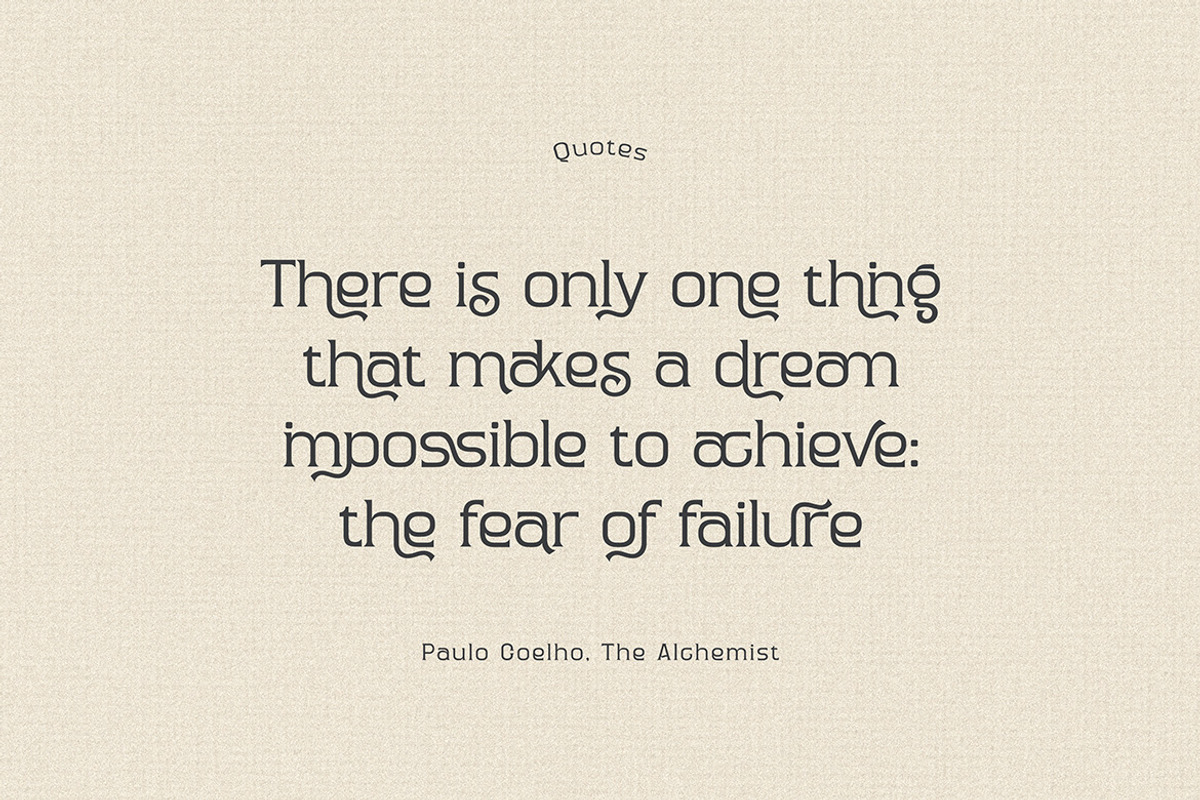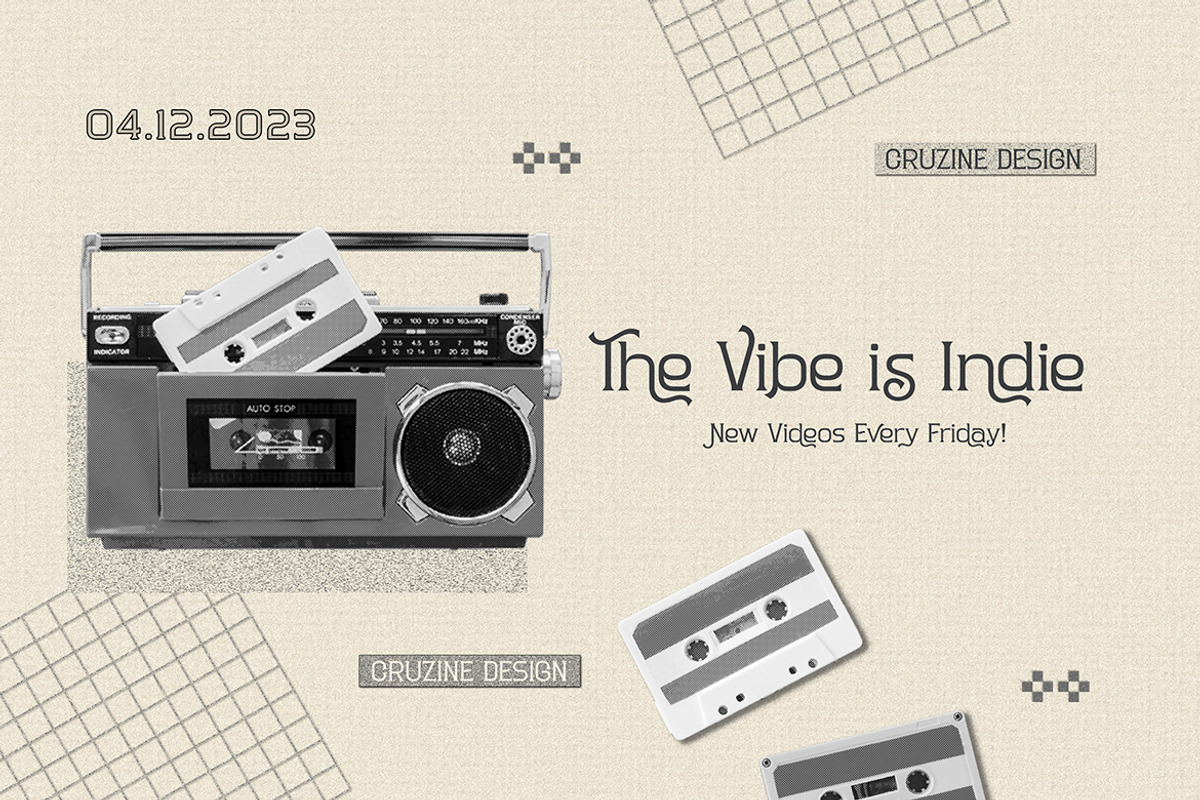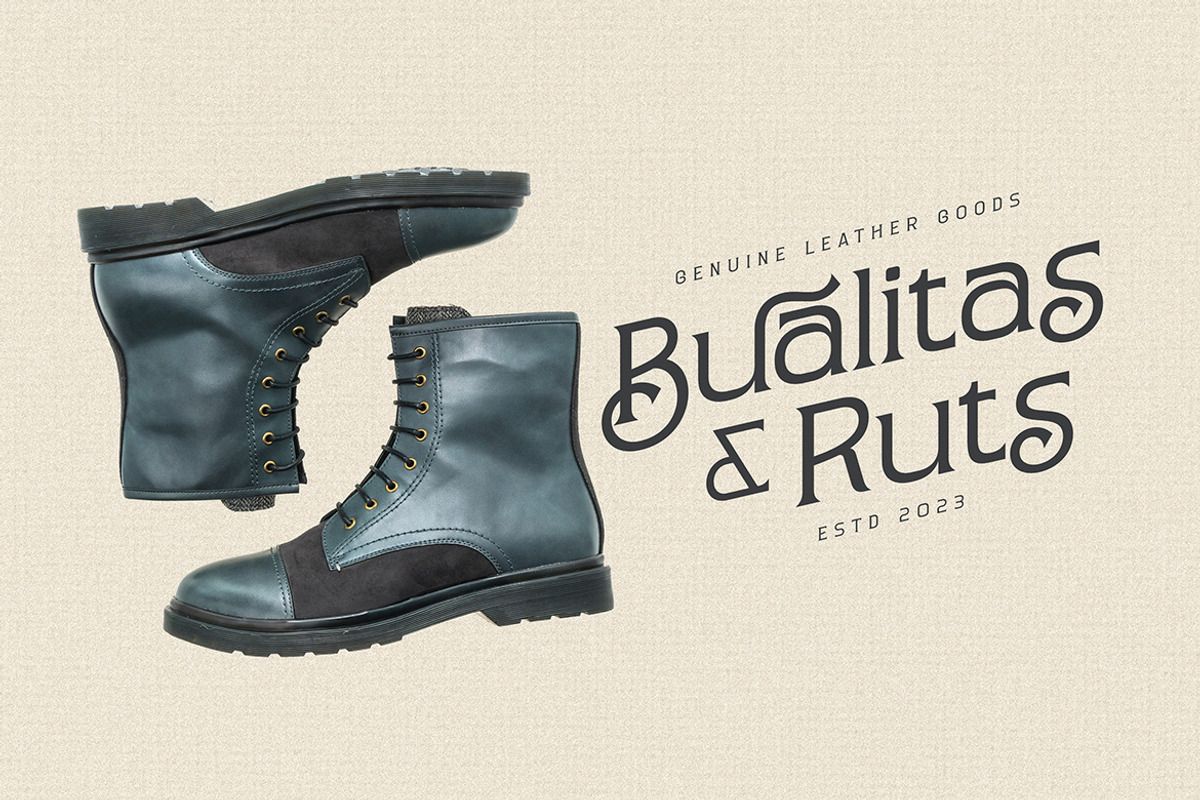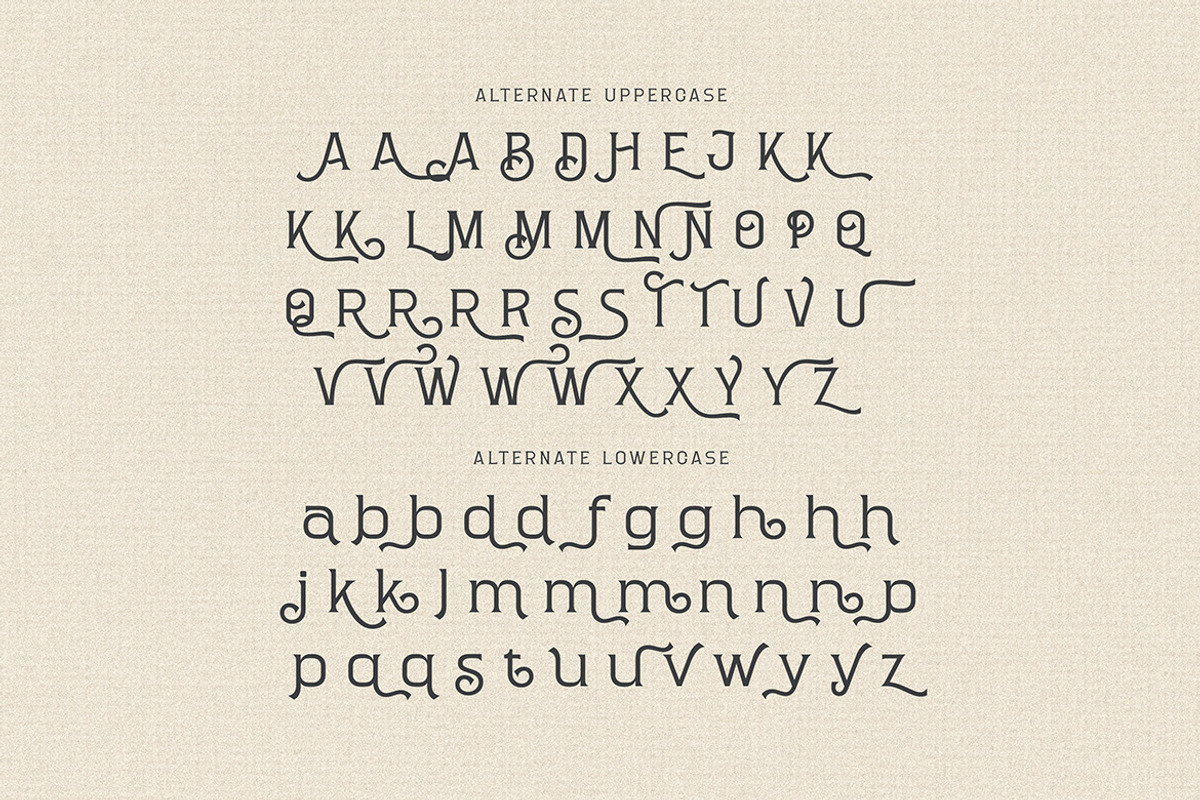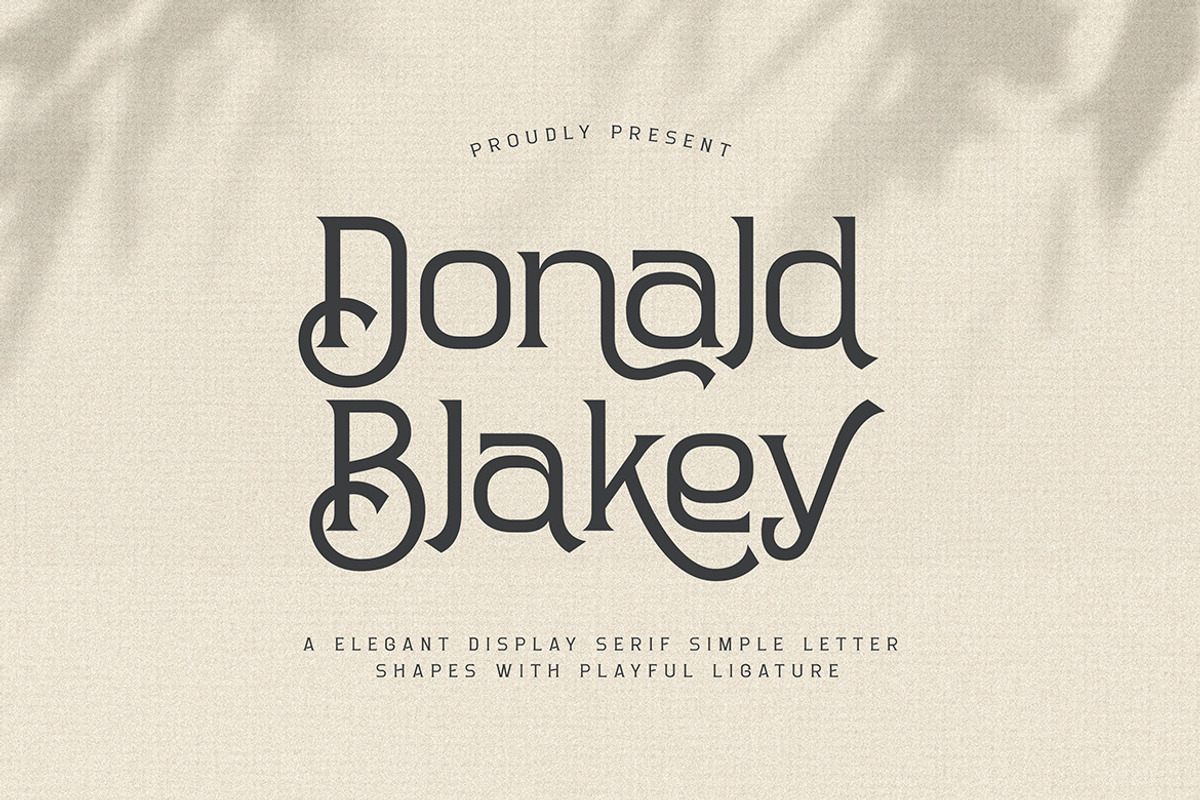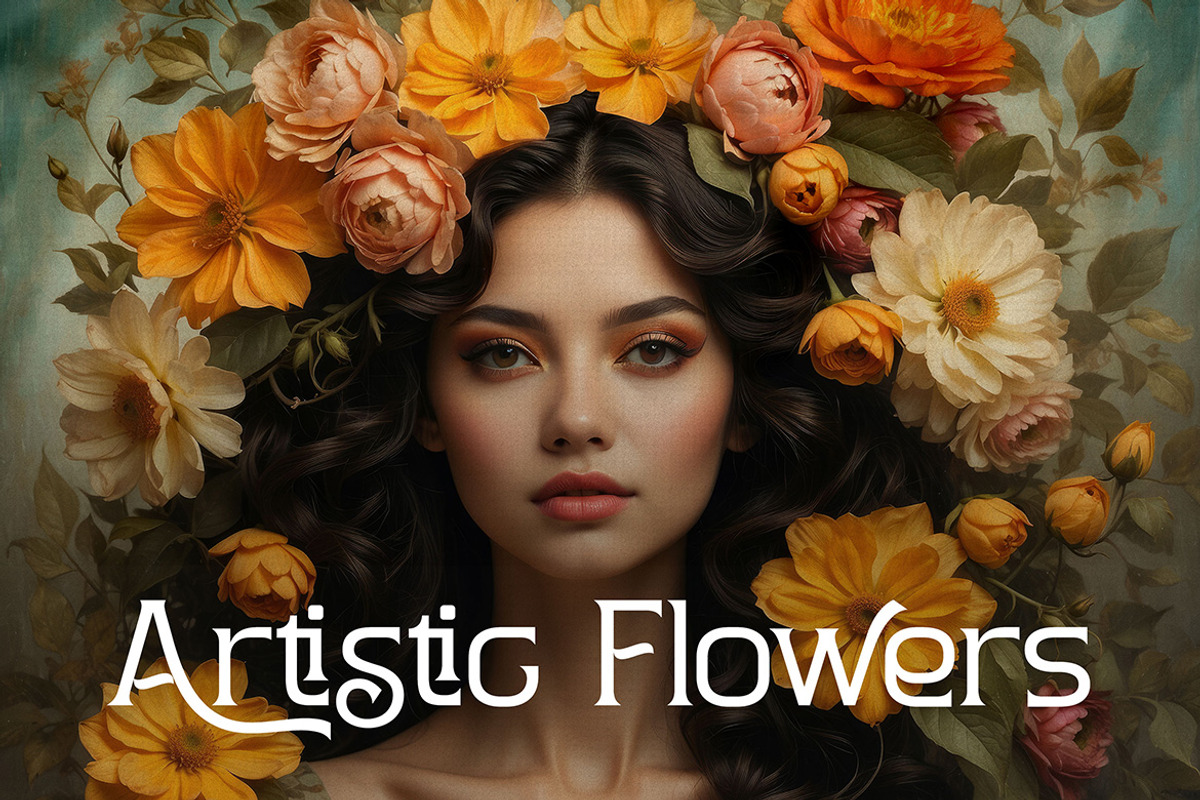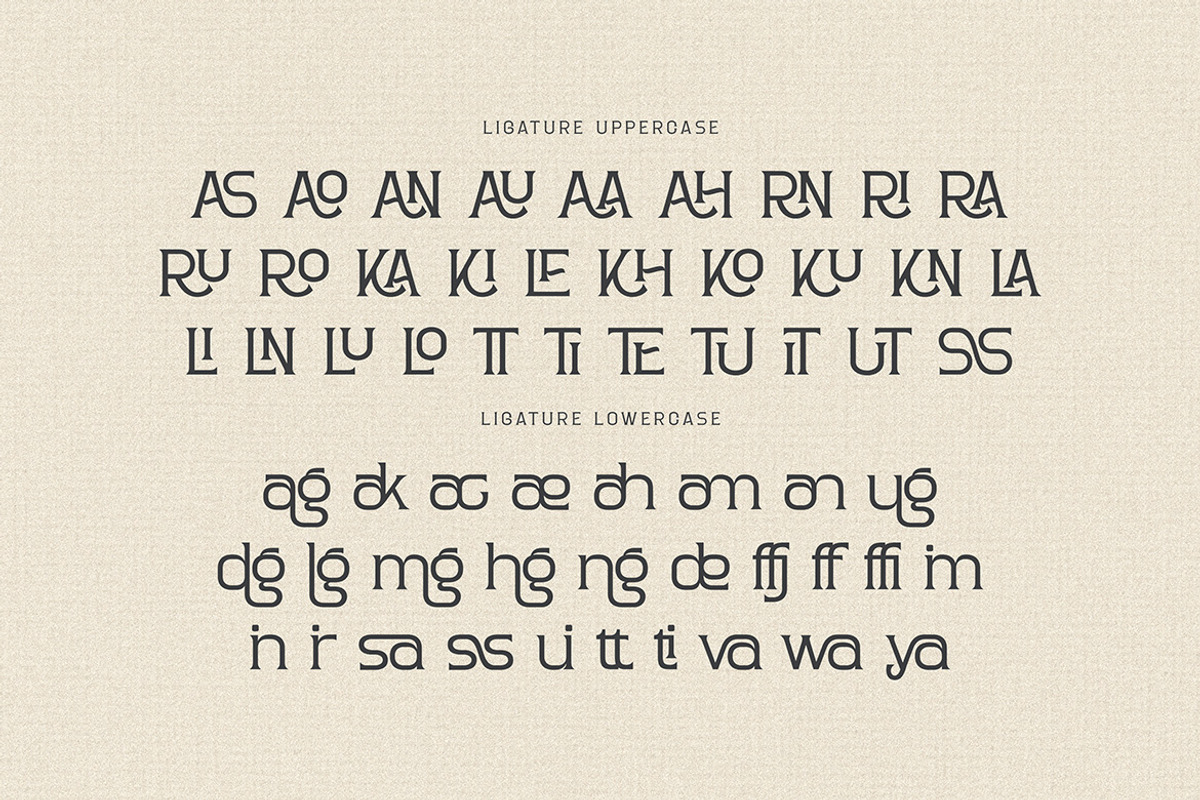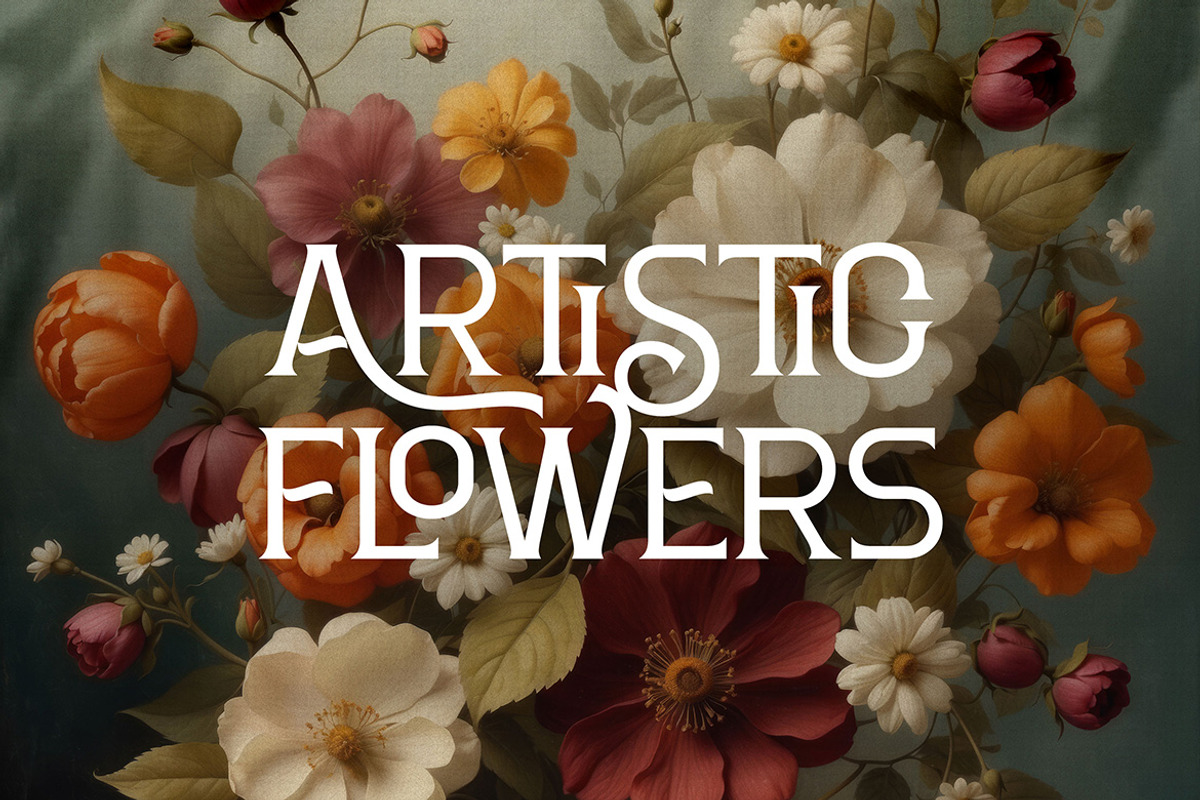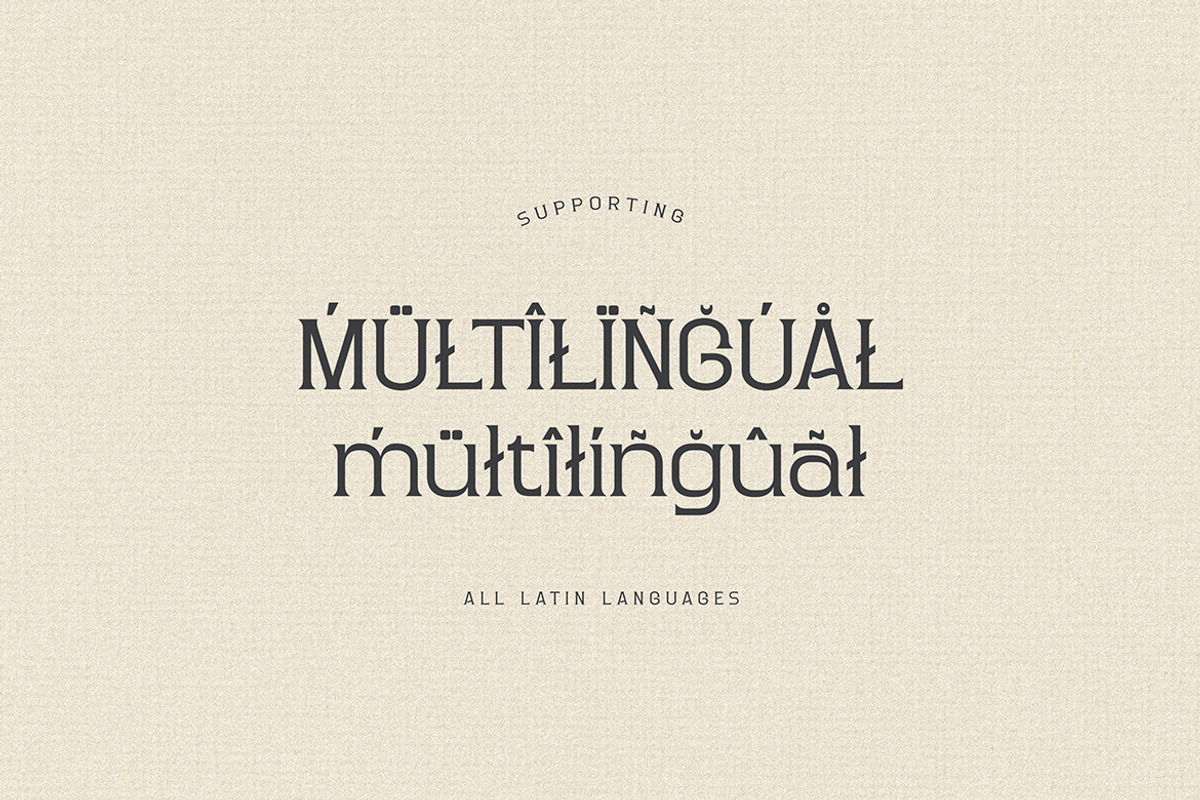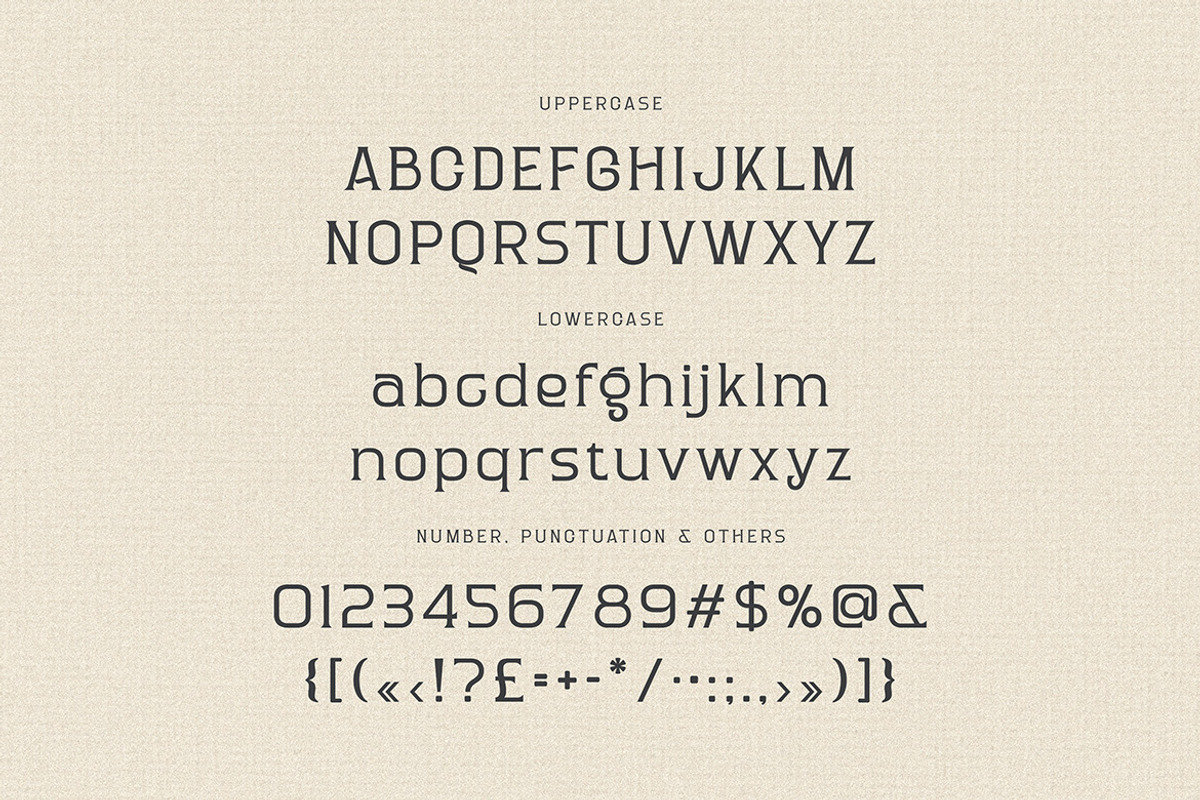
Donald Blakey Retro Serif
Funny, playful, retro & modern style serif font for your new creative projects. Stylish, decorative and creative style on Donald Blakey serif font will be great for any retro or vintage branding project. Lot of alternates and ligatures will help you to create unique and original logo design or website header! Enjoy :)
- Alternate characters
- Lot of ligatures
- Great for modern branding projects!